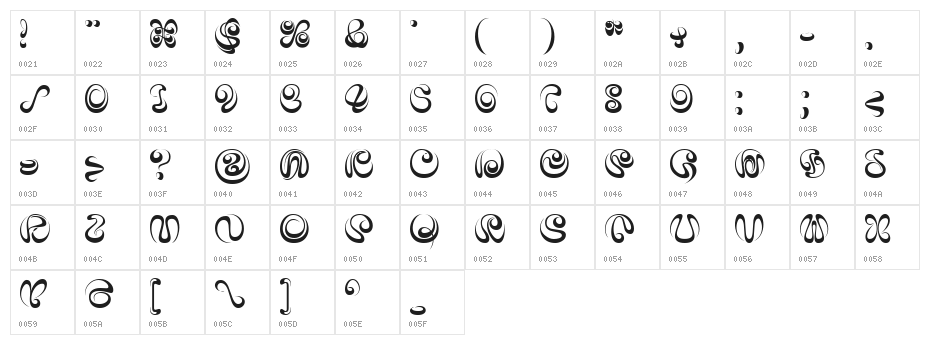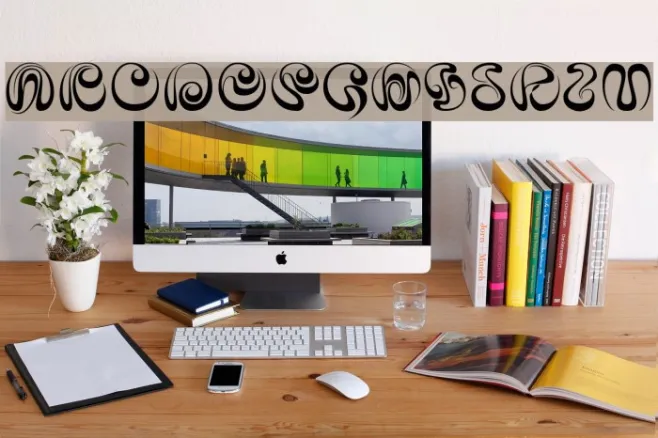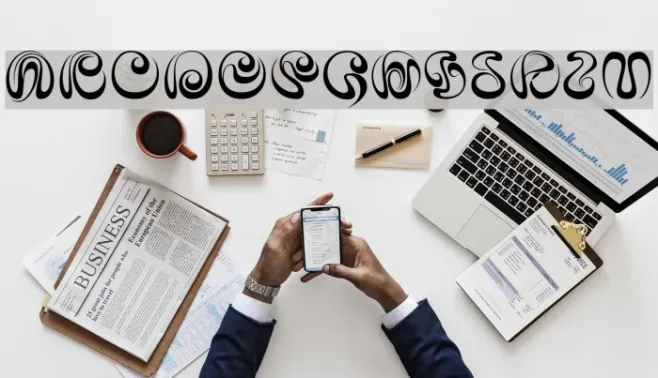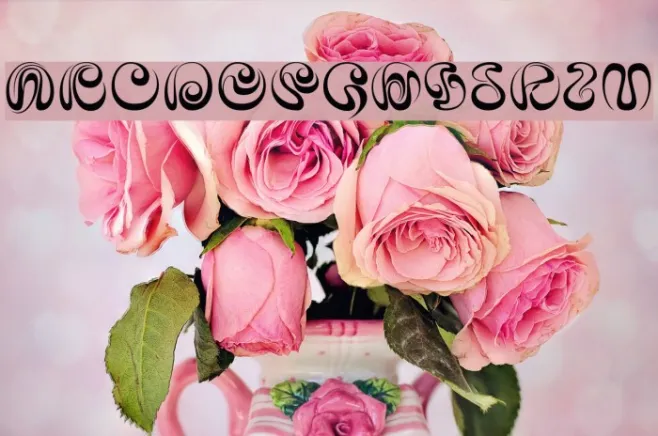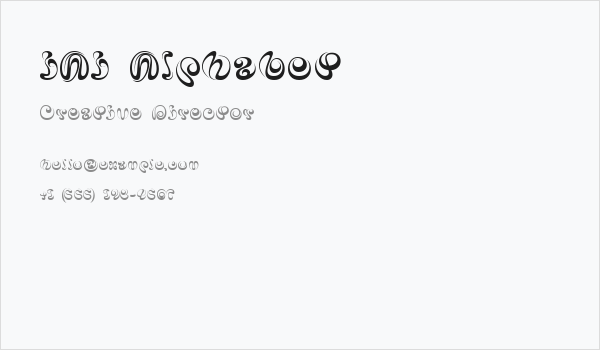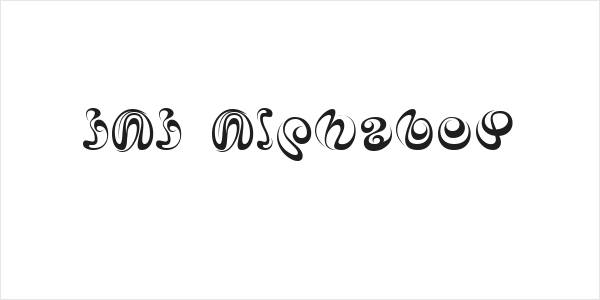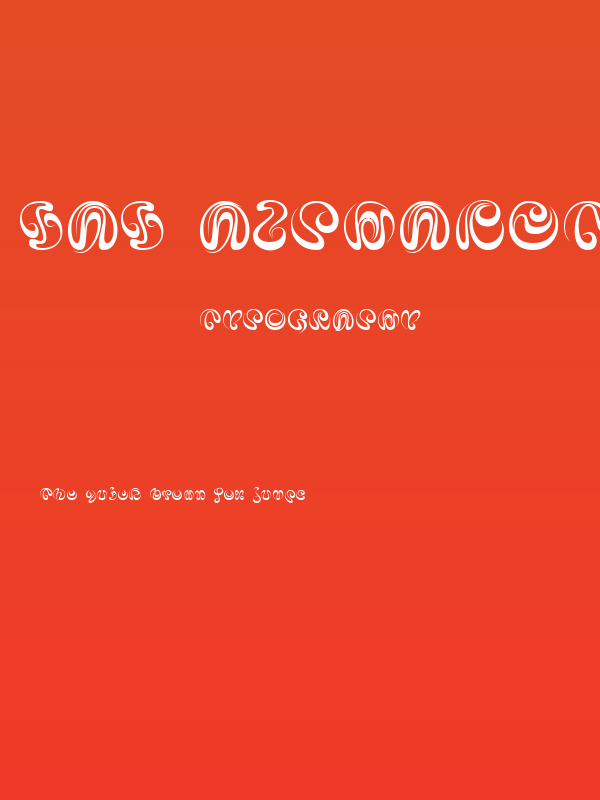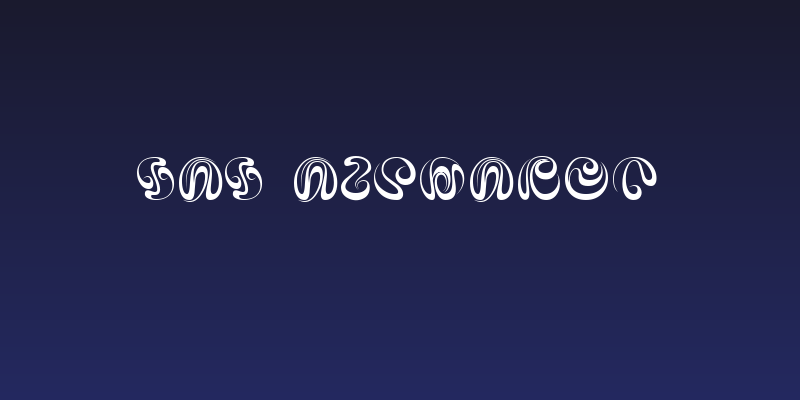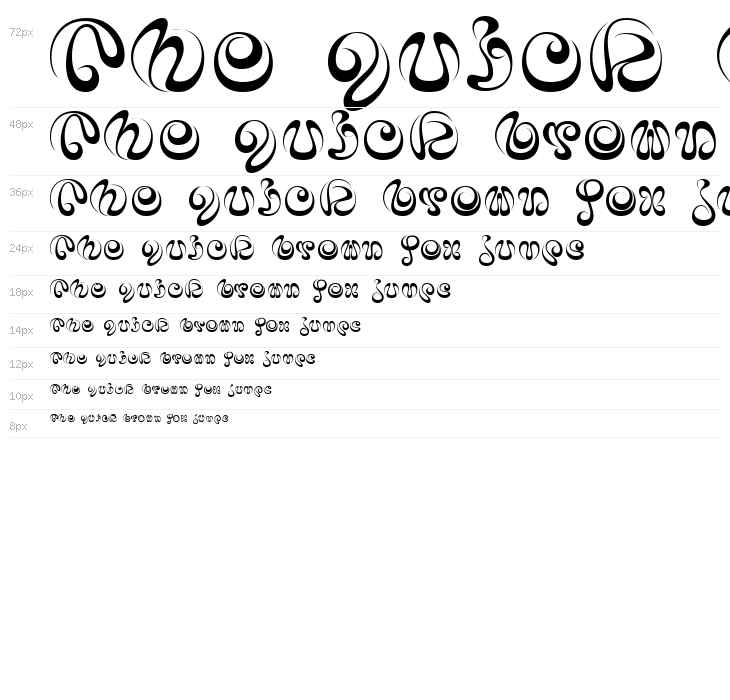
iAi Alphabet Font
iAi Alphabet Description
This font features a highly decorative and artistic style, characterized by bold, swirling strokes and intricate curves. Each character is uniquely designed with a sense of movement and fluidity, creating a visually dynamic appearance. The letters are bold and have a high contrast between thick and thin strokes, giving them a dramatic and eye-catching look. The font's playful and whimsical nature makes it stand out, with each letter resembling a piece of abstract art. The overall design is cohesive, with a consistent use of curves and loops throughout the alphabet, making it ideal for creative and expressive projects.
| Use Case | Logos, Posters, Artistic Projects |
| Proposed Projects | Ideal for artistic posters, creative branding, unique invitations, and expressive logos. |